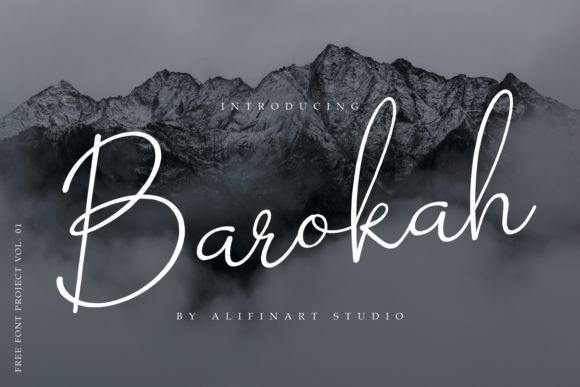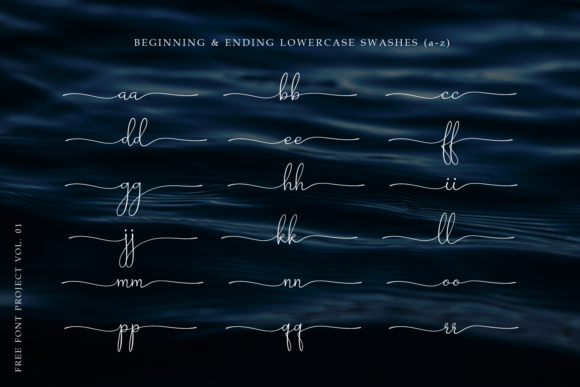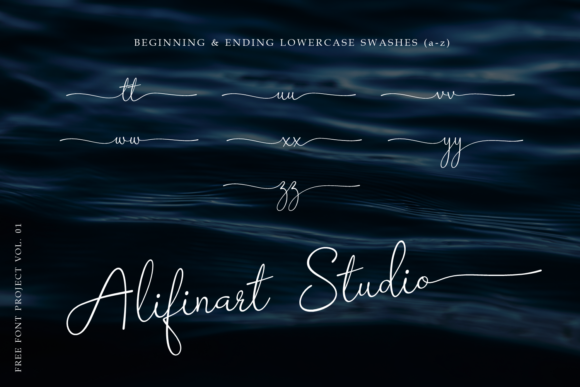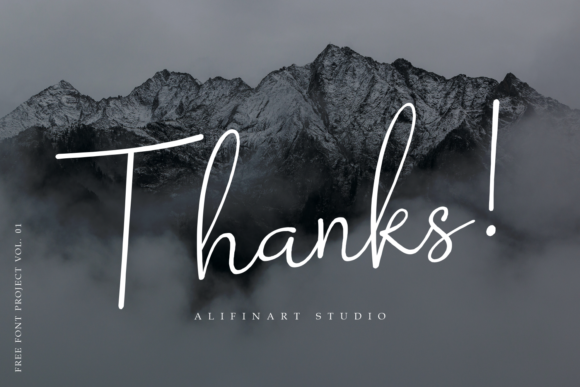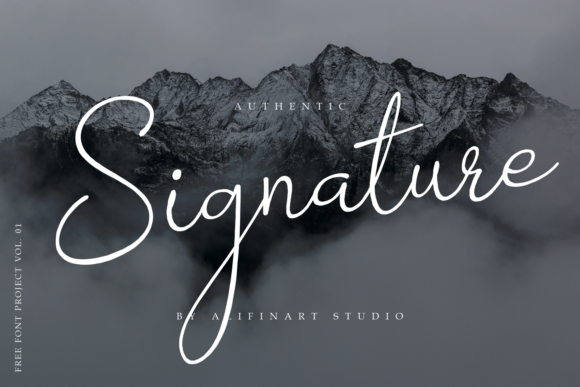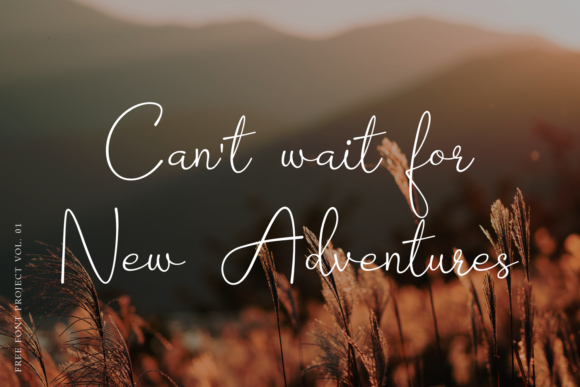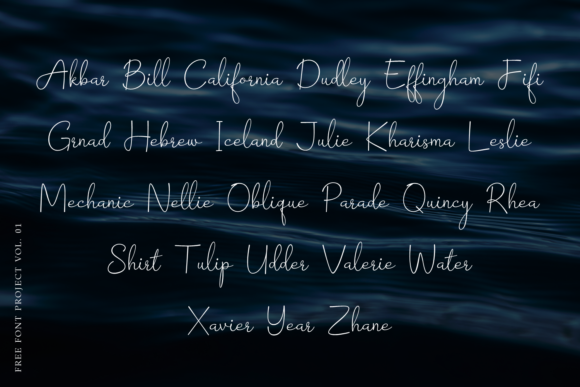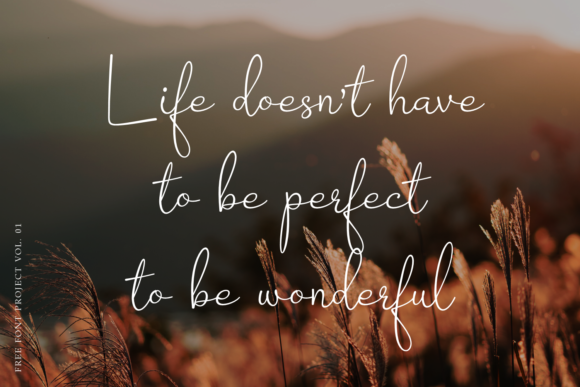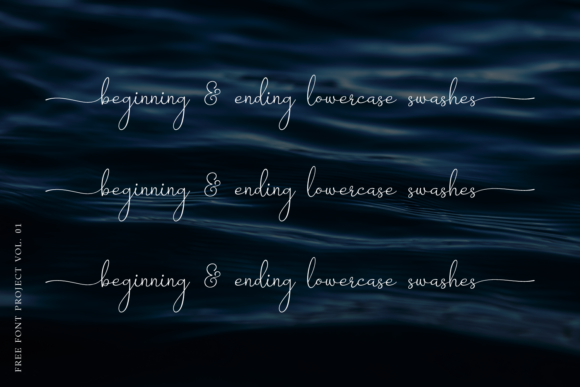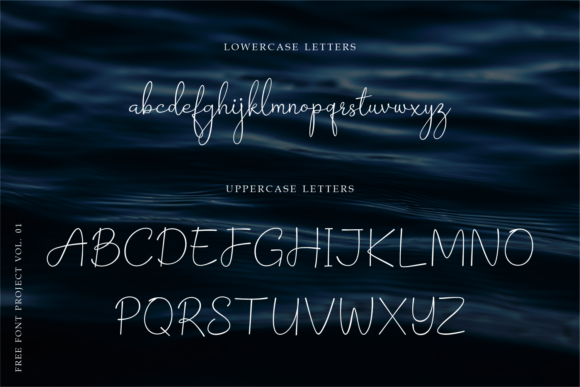
Barokah
About Barokah Font
Barokah is a unique and elegant font. This font design is a blend of the soft and bold designs that are the hallmark of a signature font. The main inspiration for this font is the handwritten style of writing using an ink pen.